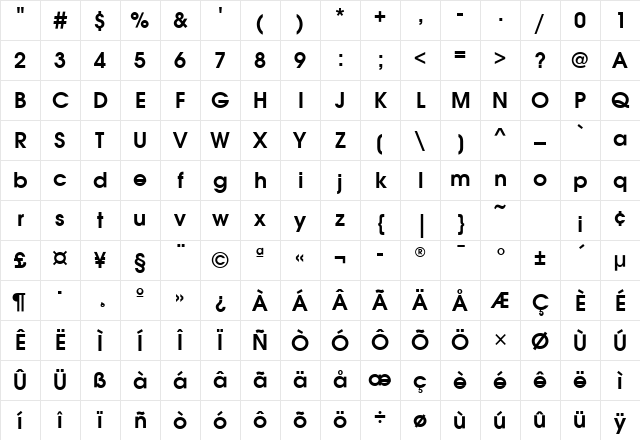
AvantGardeITC Demi
Style: Demi
Foundry: E+F Designstudio. ITC Avant Garde is a registered trademark of International Typeface Corporation
Design Context for AvantGardeITC
AvantGardeITC is a composed and adaptable typeface that performs quietly and consistently across a wide range of design contexts.
Who designed the AvantGardeITC Demi font?